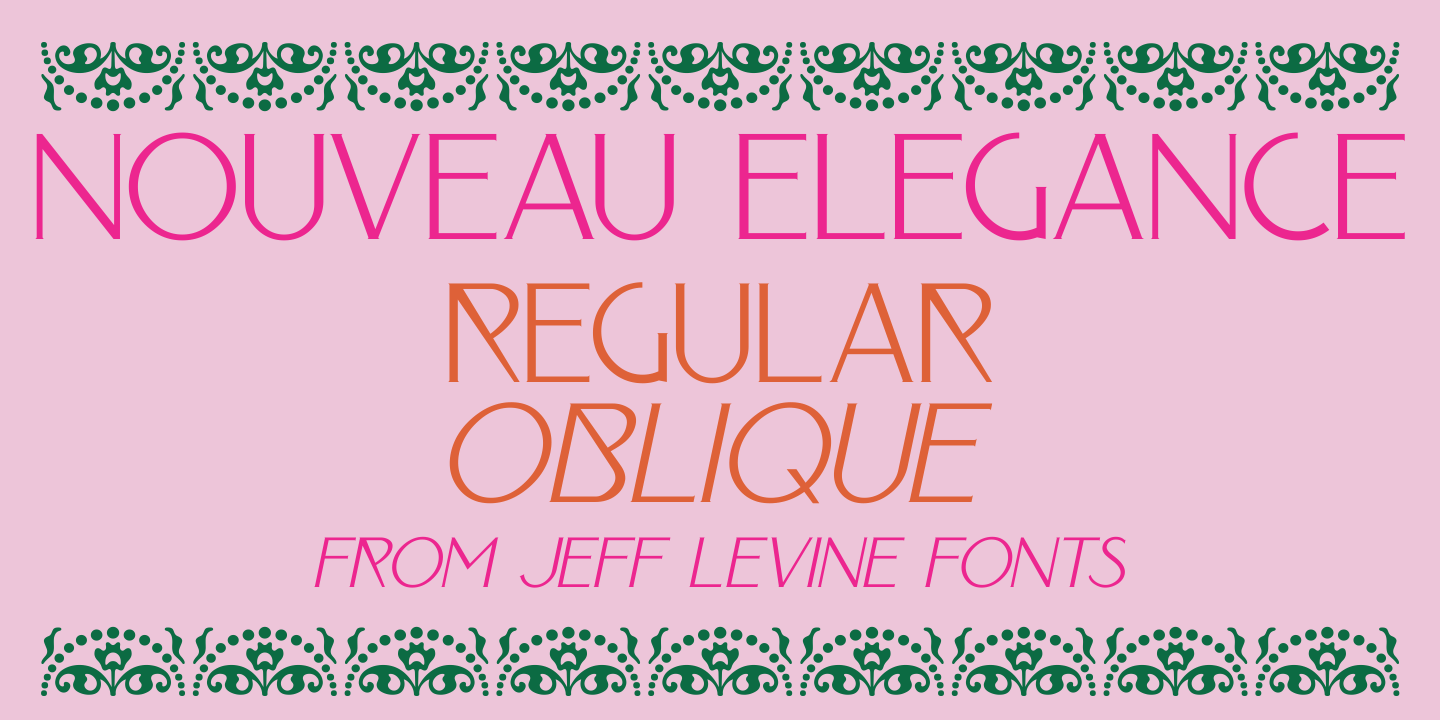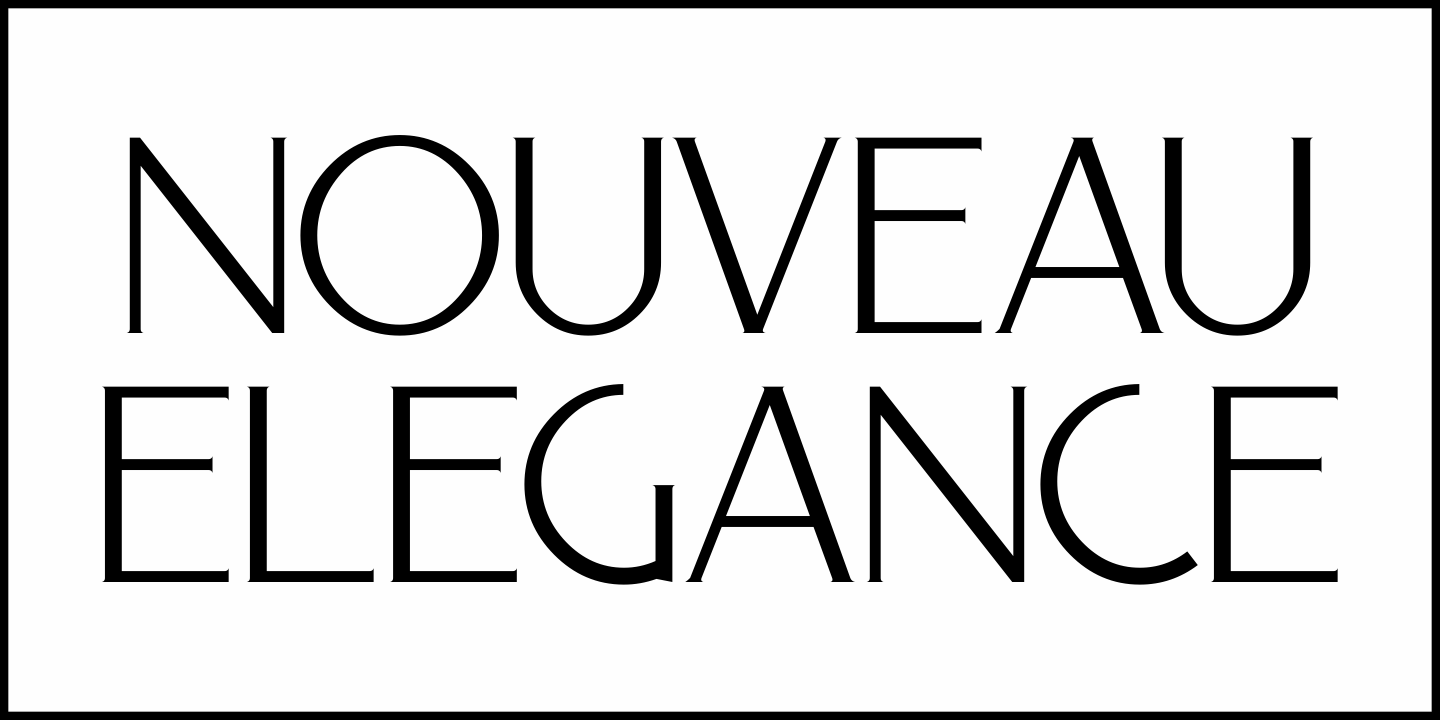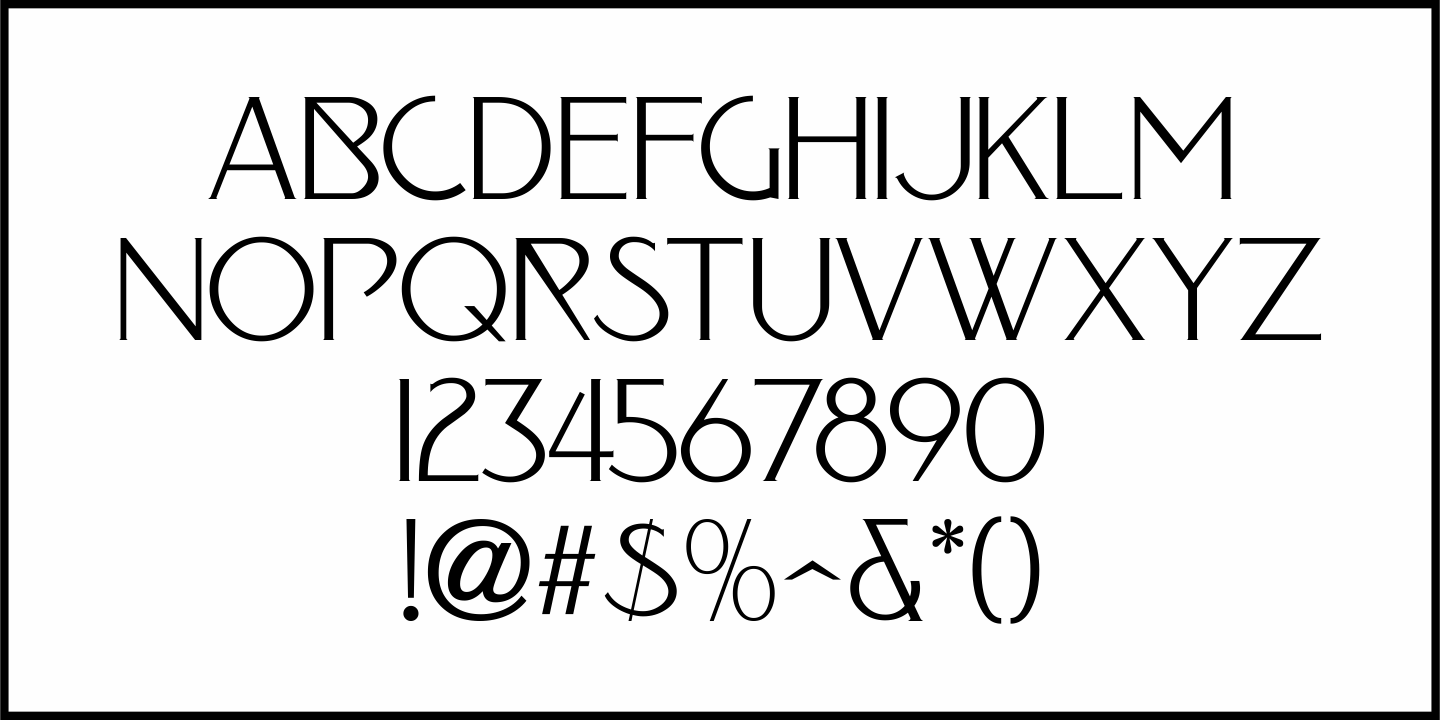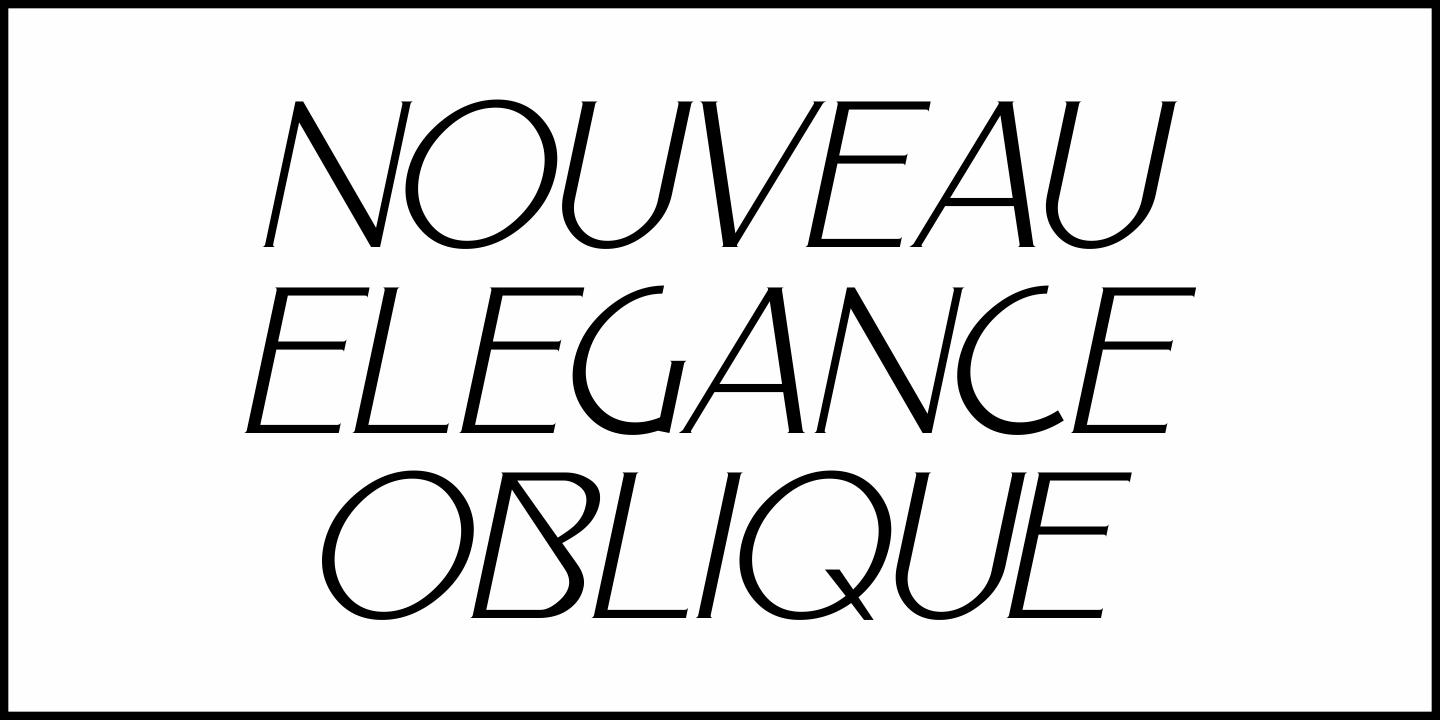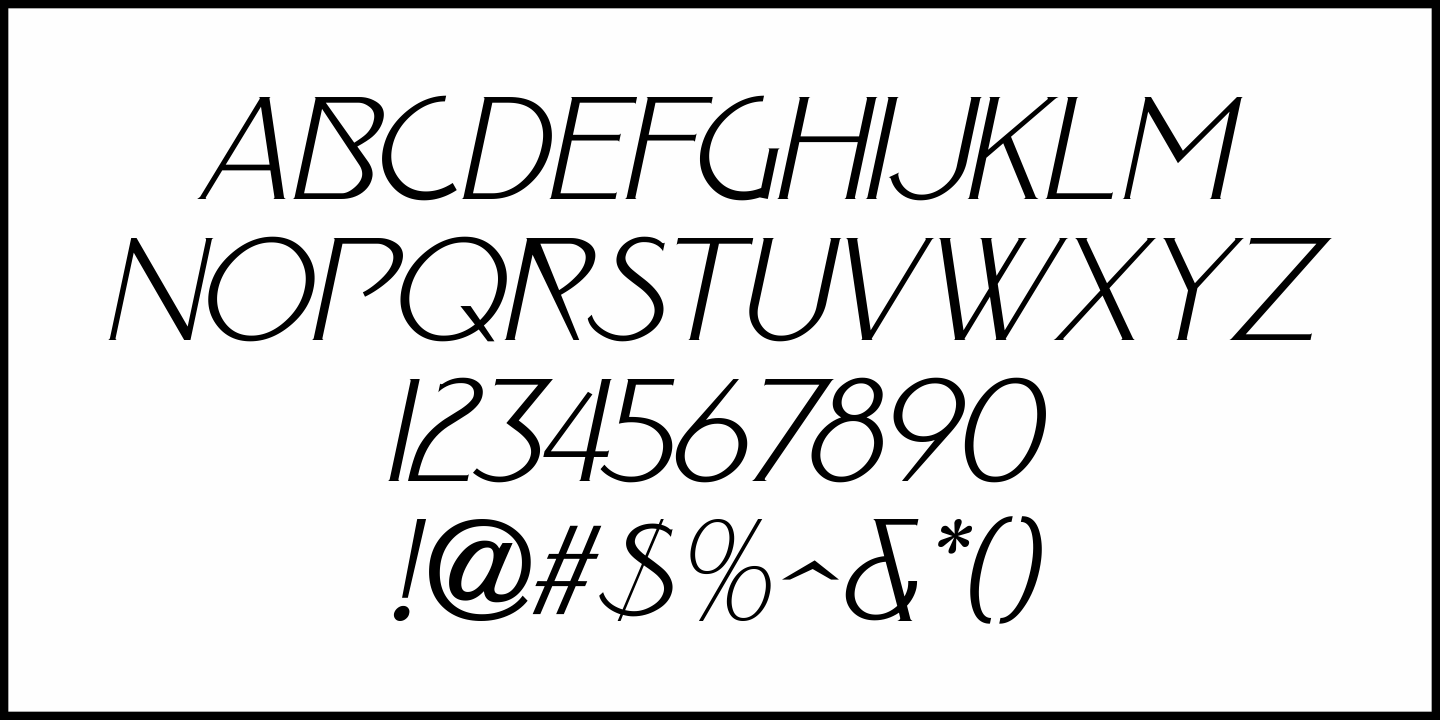
Nouveau Elegance
The gently spurred serif hand lettering found on an advertisement for Berkshire Stockings (circa the 1920s) was the inspiration for Nouveau Elegance JNL, which is available in both regular and oblique versions.
Nouveau Elegance JNL Regular by Jeff Levine Fonts